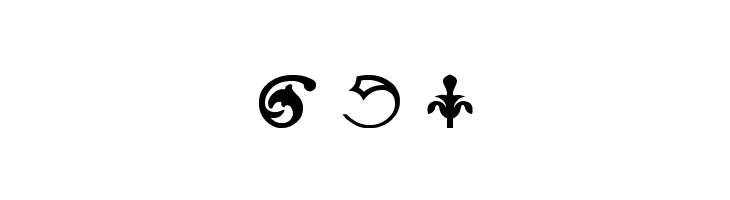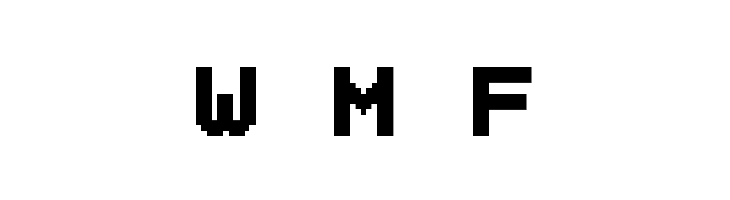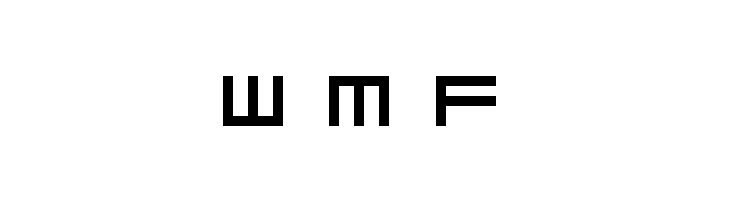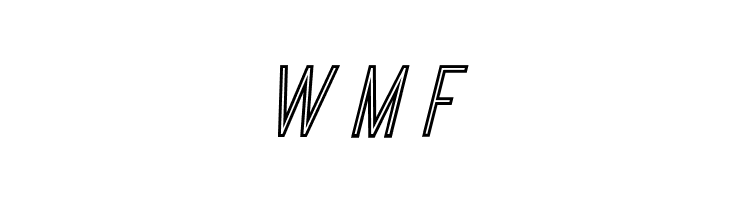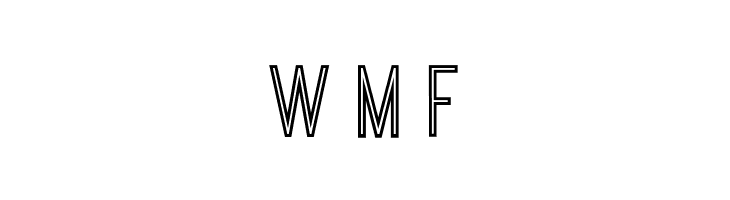
Ornate decorative elements with vintage and classical motifs.
A modern, bold sans-serif typeface with clean lines and geometric structure.
A playful, modern font with geometric and cursive elements.
A bold, geometric font with a modern, tech-inspired design.
A pixelated outline font with a retro digital aesthetic.
A pixelated, retro-style font with a blocky, geometric design.
A playful, bold font with a hand-drawn outline effect.